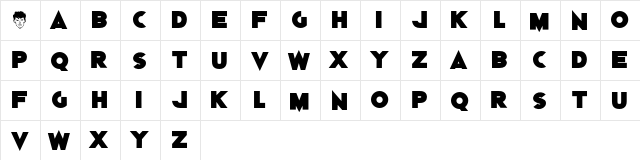
DYLAN DOG Regular
| Foundry | P. A. Vannucci |
| Designer | P. A. Vannucci |
Design Context for DYLAN DOG Typeface
DYLAN DOG offers clean, dependable letterforms without strong stylistic allegiance, making it a practical choice for designers who need flexibility.